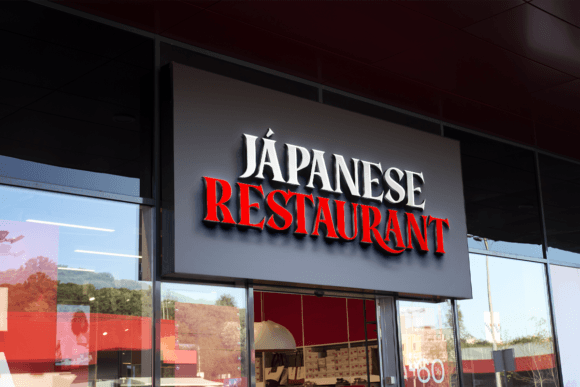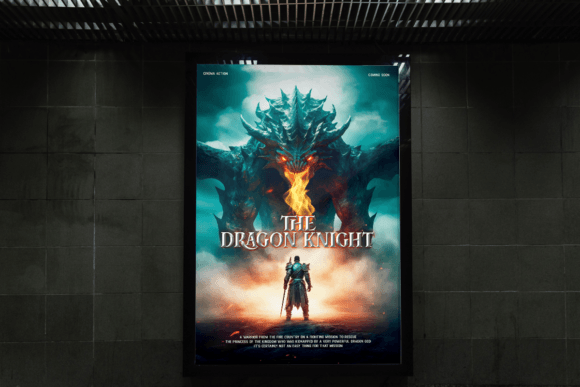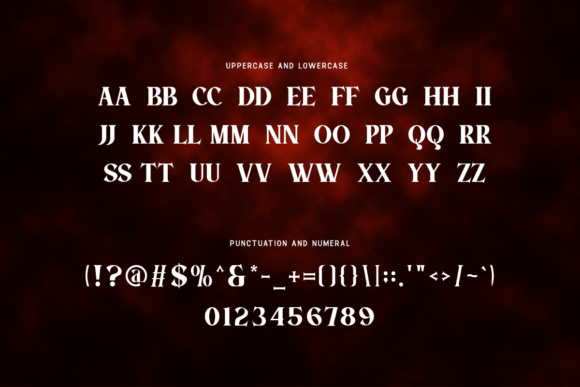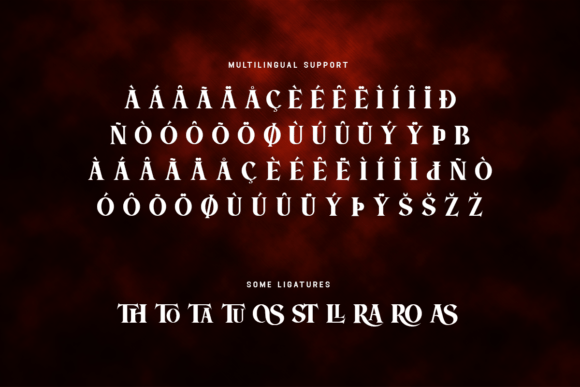
The Designer’s Dream Font: Aostora Serif Film Font
I still remember the frustration of working on a project, pouring my heart and soul into every detail, only to be held back by one thing: the font. My client wanted a vintage-inspired movie title that exuded elegance and sophistication, but every font I tried seemed to fall flat. That was until I stumbled upon Aostora Serif Film Font. ✨
This stunning typeface has been a game-changer for me, and I’m excited to share its magic with you. Aostora Serif Film Font is a sophisticated and timeless typeface that blends classic serif elegance with a cinematic flair. It’s perfectly suited for creating vintage-inspired movie titles, elegant branding, and editorial designs that require a touch of retro sophistication.
- ✨ Refined yet bold aesthetic: Aostora Serif Film Font has a distinguished and cinematic style that’s perfect for headlines, logos, and projects that require a touch of elegance.
- 👍 Sharp, well-defined serifs: The font’s serifs are crisp and well-defined, making it ideal for high-resolution designs.
- 💡 Balanced proportions: Aostora Serif Film Font has a balanced and harmonious design that makes it easy to read and visually appealing.
⚠️ While Aostora Serif Film Font is an amazing typeface, it’s not without its quirks. Some users may find that the font’s bold aesthetic can be overwhelming for body text. Additionally, the font’s cinematic flair may not be suitable for all design projects.
🤔 One thing to keep in mind is that Aostora Serif Film Font is a serif font, which may not be the best choice for designs that require a more modern or minimalist look.
The Designer Inspiration Behind Aostora Serif Film Font
Aostora Serif Film Font was inspired by the classic films of Hollywood’s Golden Age. The font’s designer wanted to create a typeface that captured the essence of old-school movie titles, while still being elegant and sophisticated. The result is a font that’s perfect for creating vintage-inspired designs that exude luxury and glamour.
Q: What is Aostora Serif Film Font?
A: Aostora Serif Film Font is a sophisticated and timeless typeface that blends classic serif elegance with a cinematic flair.
Q: What is Aostora Serif Film Font best used for?
A: Aostora Serif Film Font is perfect for creating vintage-inspired movie titles, elegant branding, and editorial designs that require a touch of retro sophistication.
Q: Is Aostora Serif Film Font easy to use?
A: Yes, Aostora Serif Film Font is easy to use and comes with a range of OpenType features, such as glyphs and swashes, that make it easy to customize your designs.